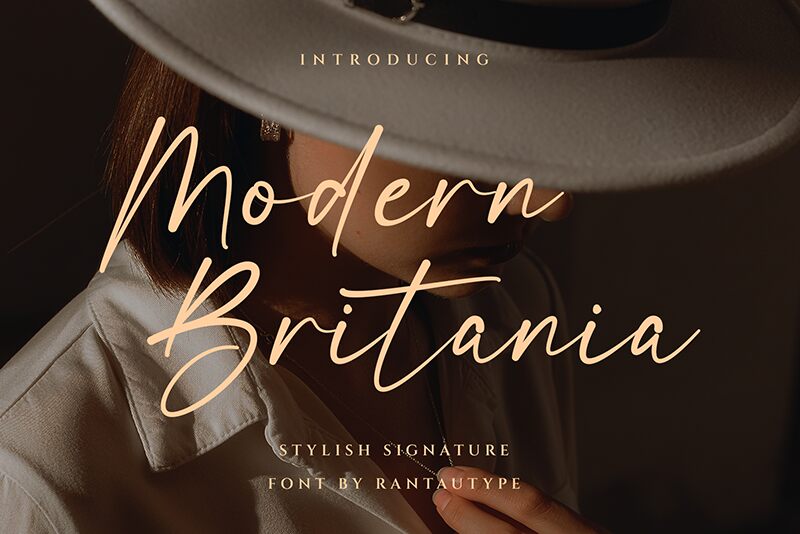
Modern Britania font is a free handwritten font by RantautypeStudio. Sleek, elegant, and stylish, the font provides a modern take on design that fits various themes from contemporary to dynamic projects. The flowing characters connect in an organic manner, mimicking the natural movement of handwriting. Designers can put their ideas into action with Modern Britania as it brings a natural touch that never fails to catch attention.
The extraordinary display of Modern Britania can be showcased both on screen and in print. So designers are welcome to add it to branding designs, using it for logos and logotypes or delightful business cards with a special focus on fashion projects like magazines, ad banners, and apparel items. Modern Britania can also be featured in invitations, combining it with another font and using it for the front and center title for a stunning creation.